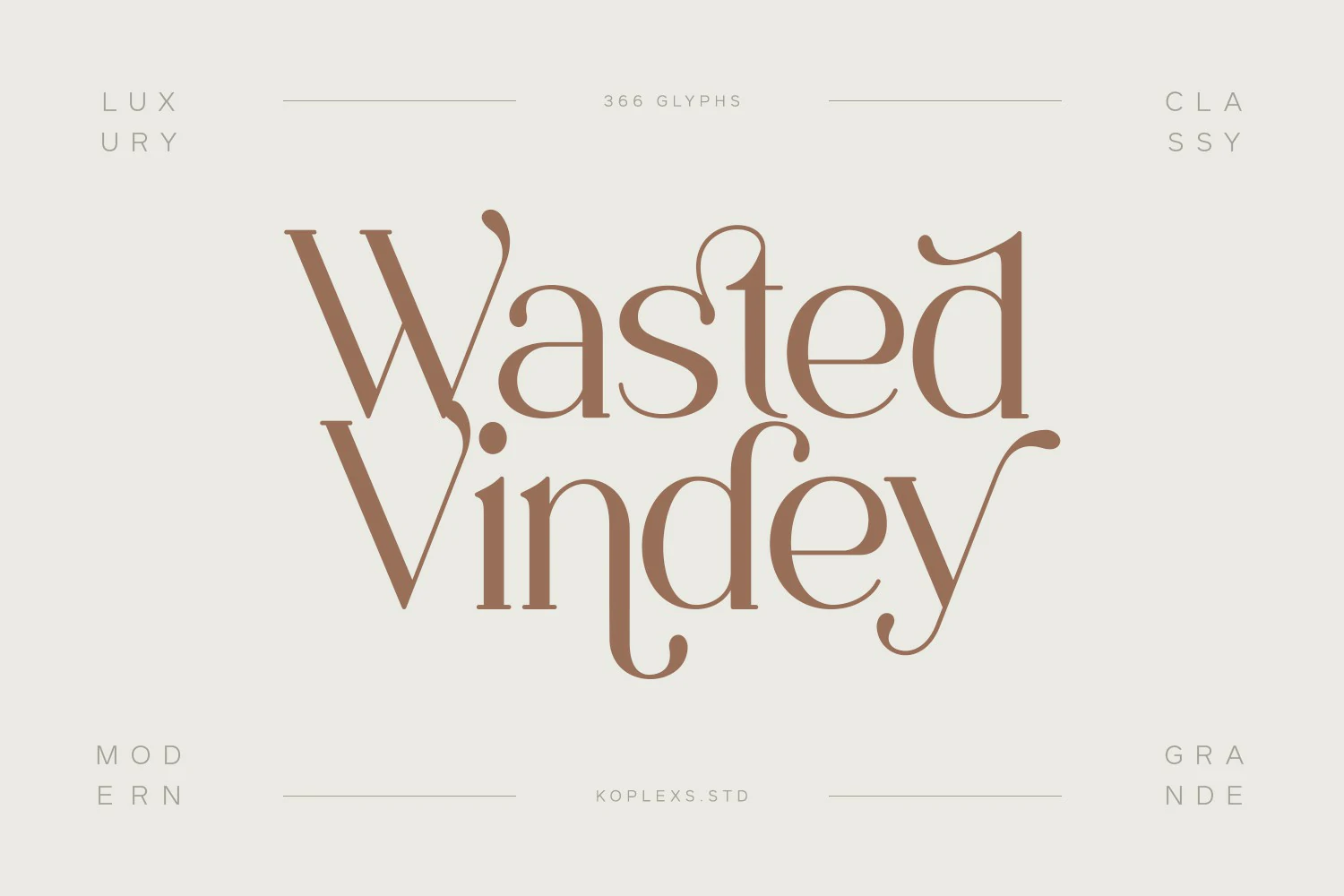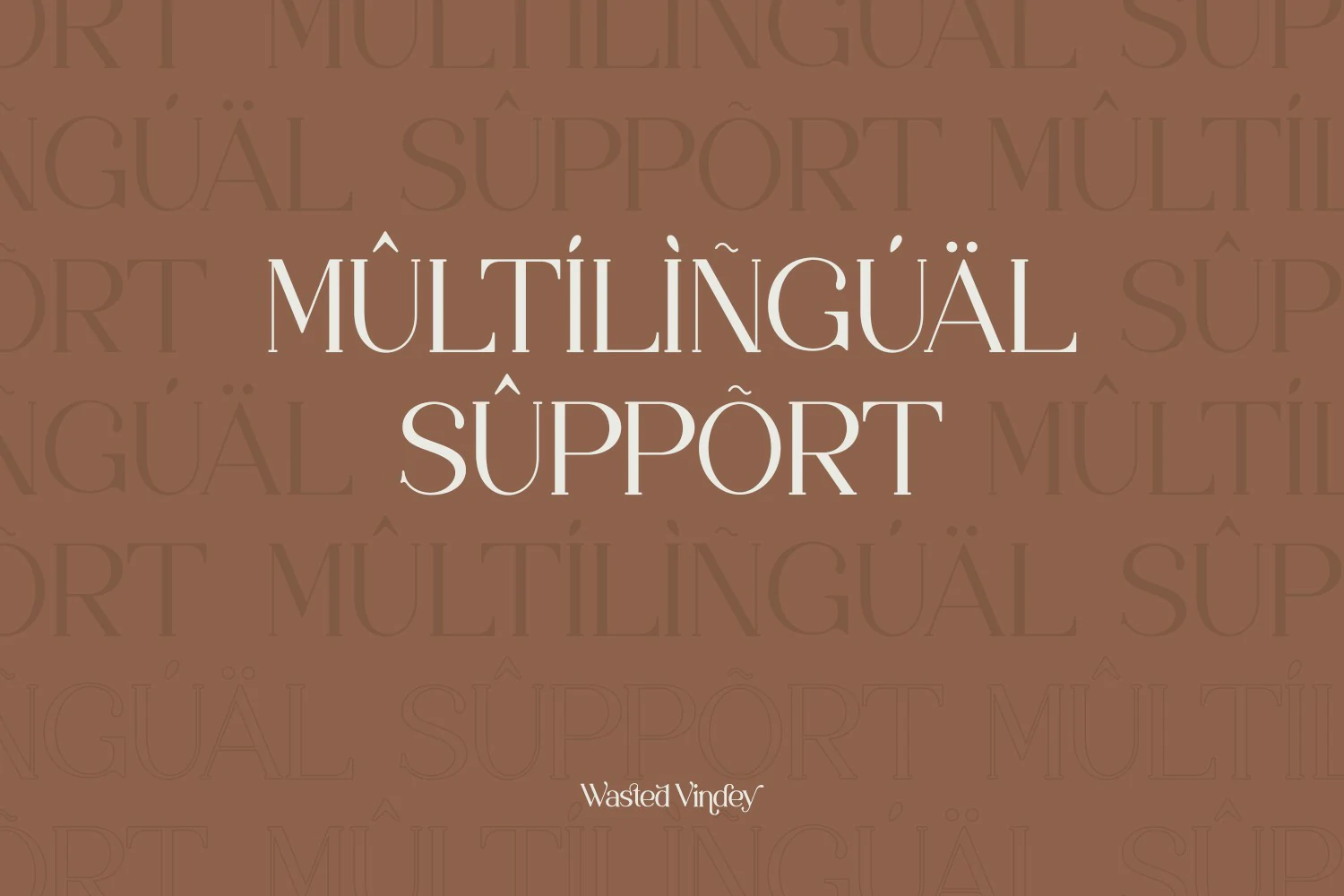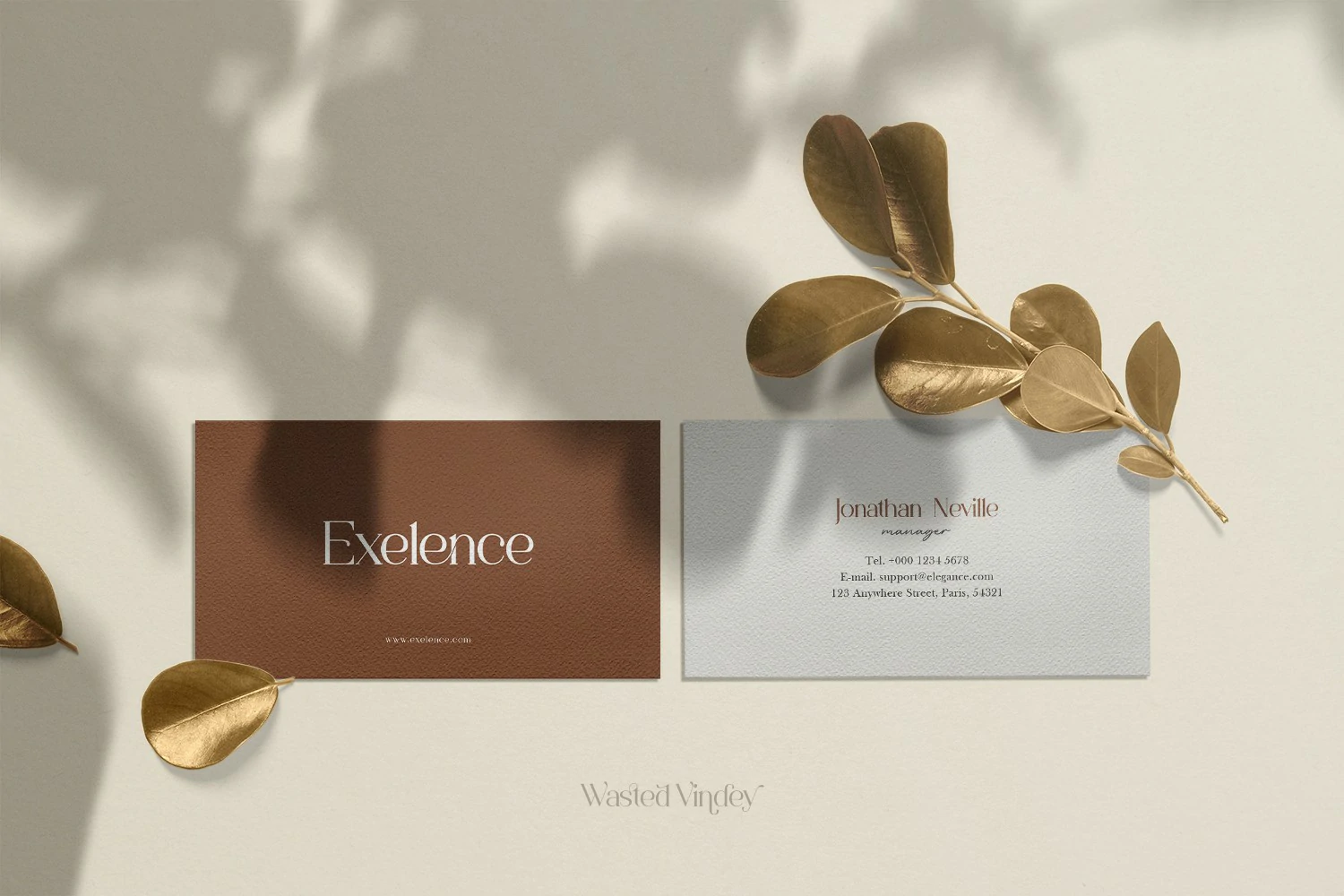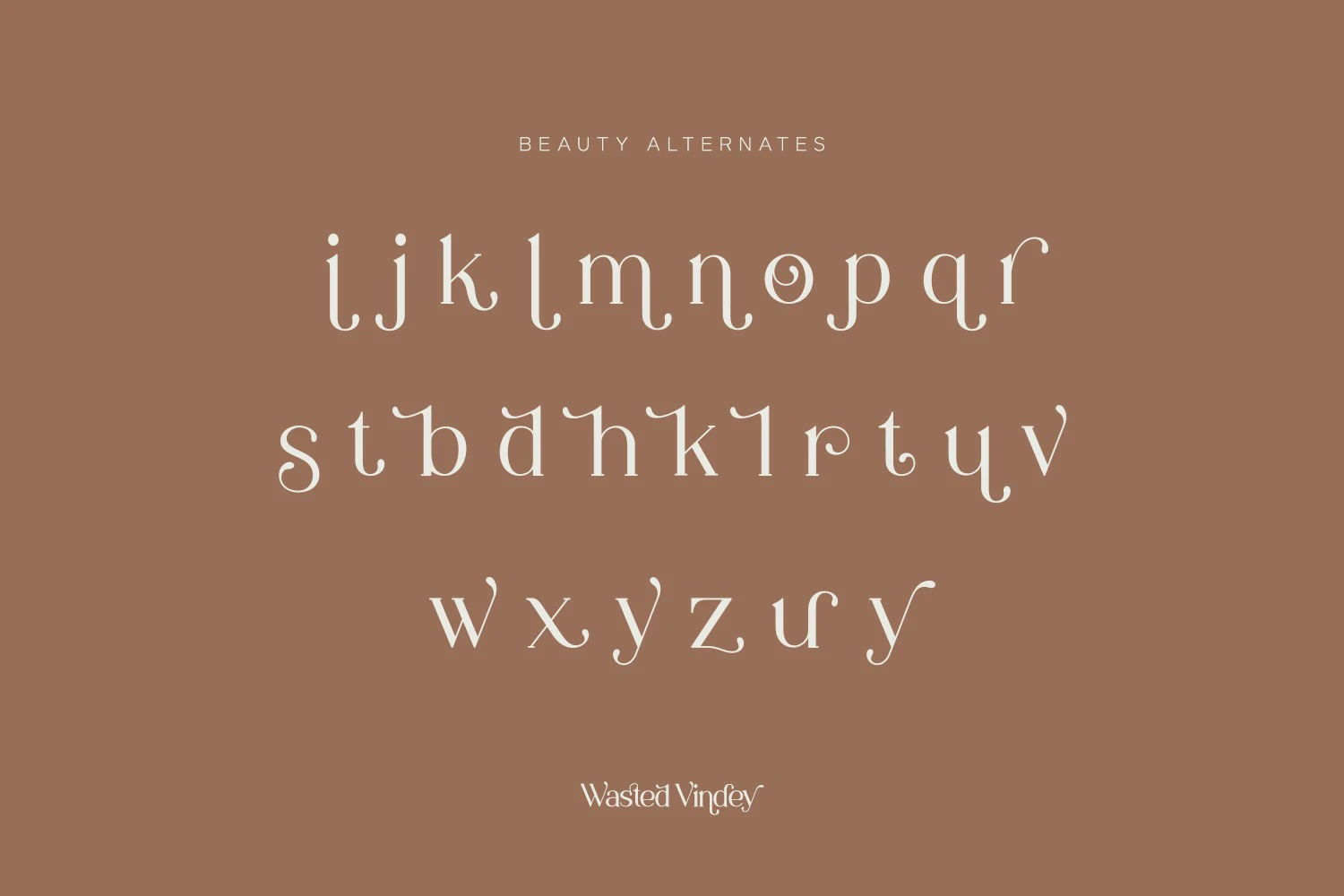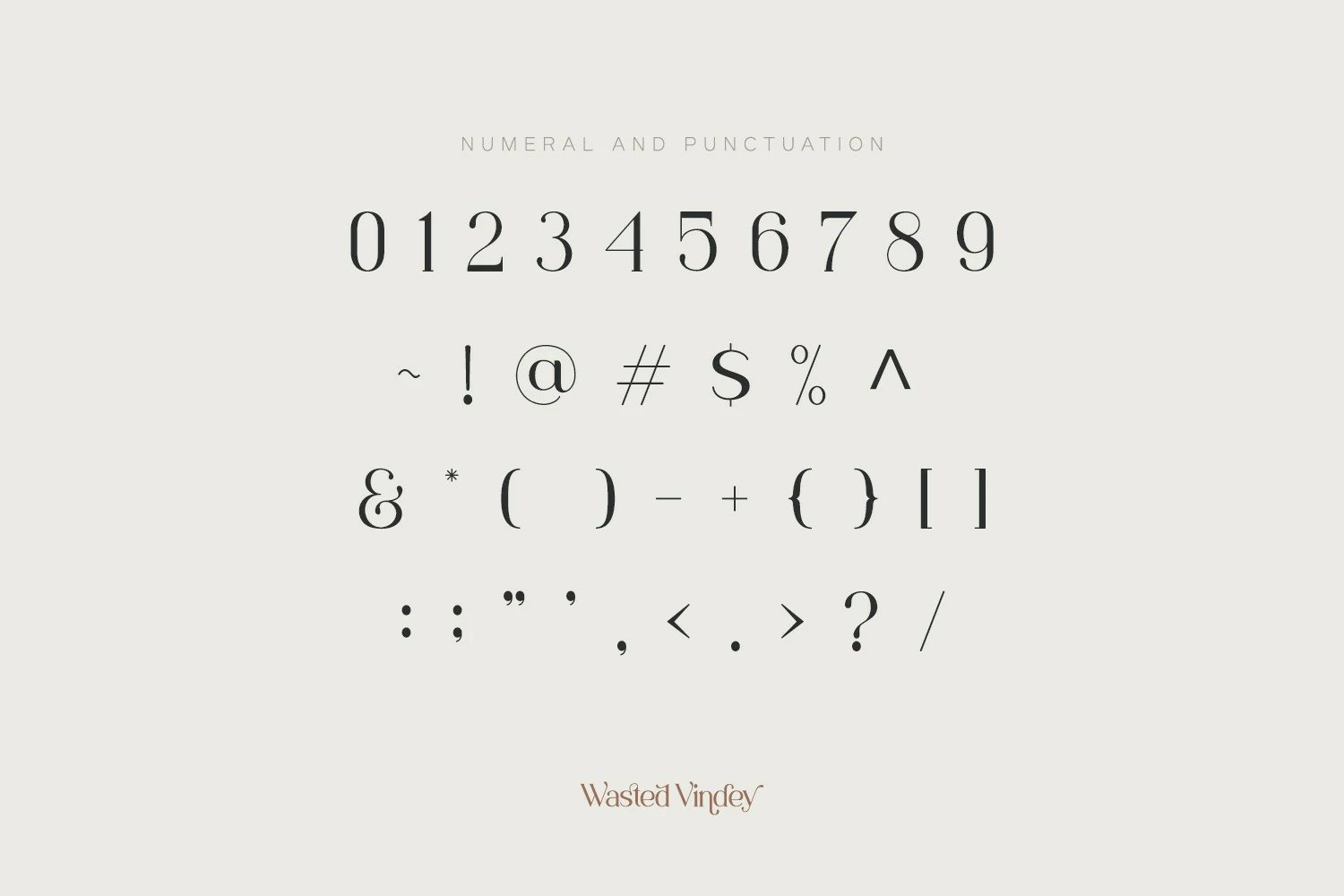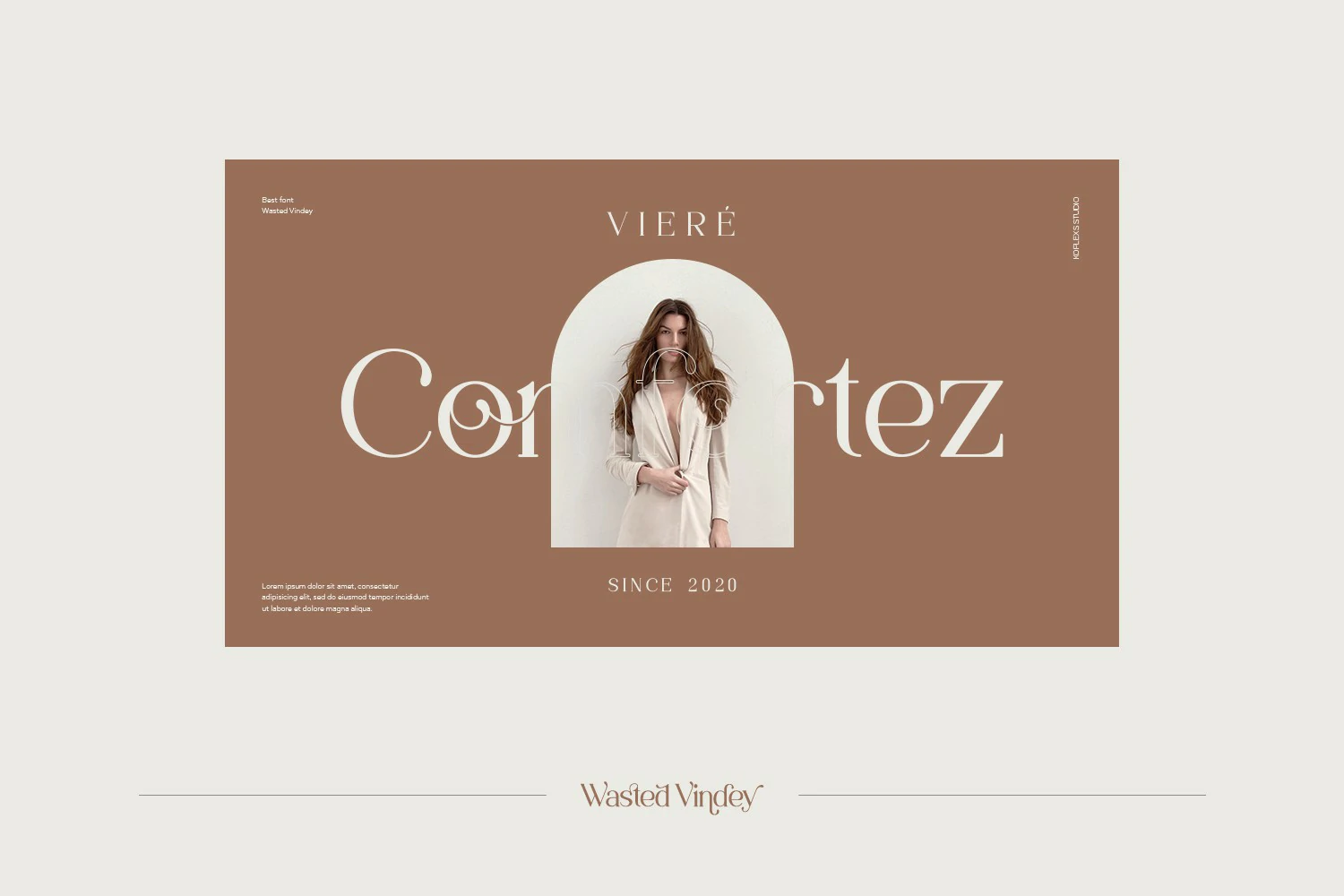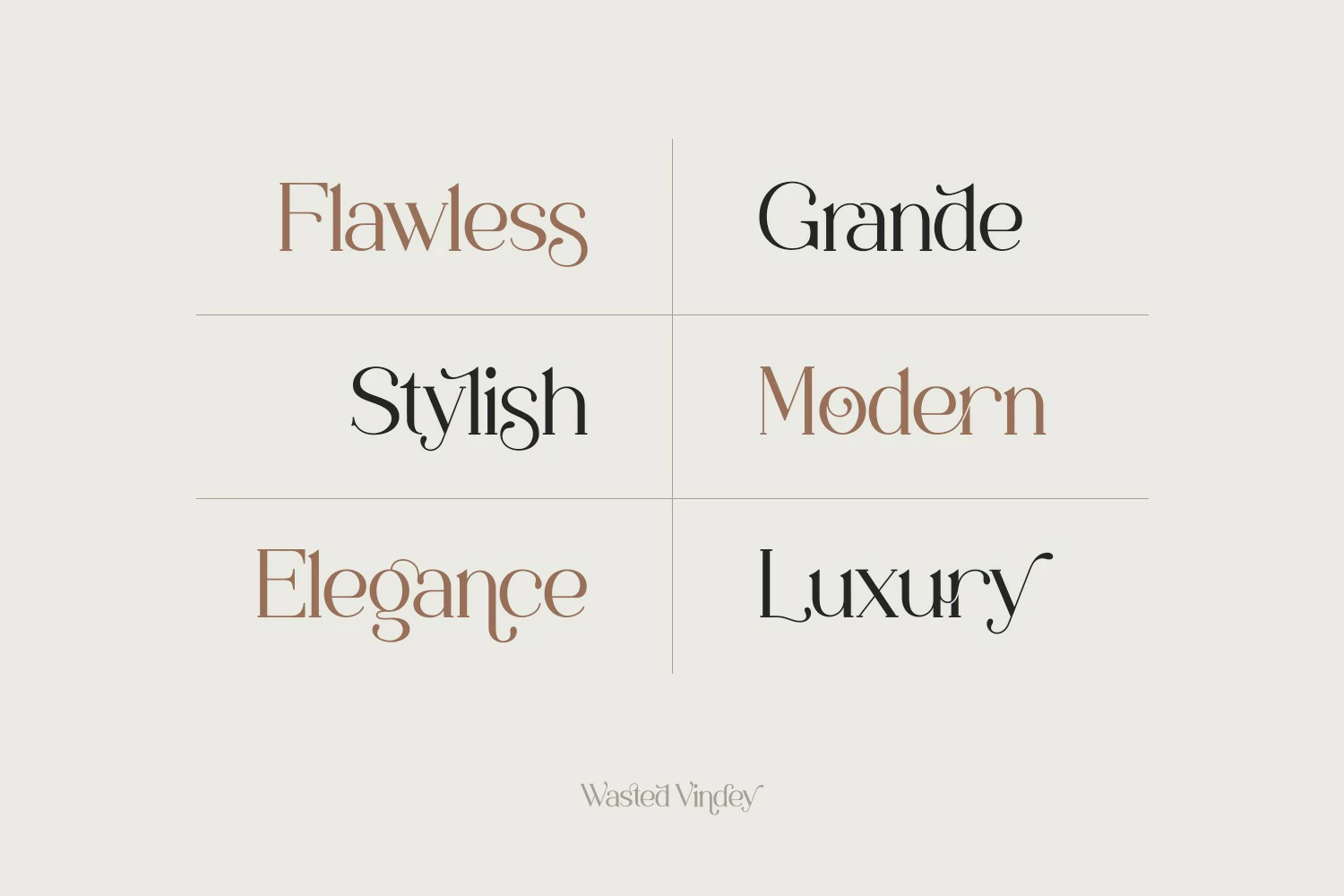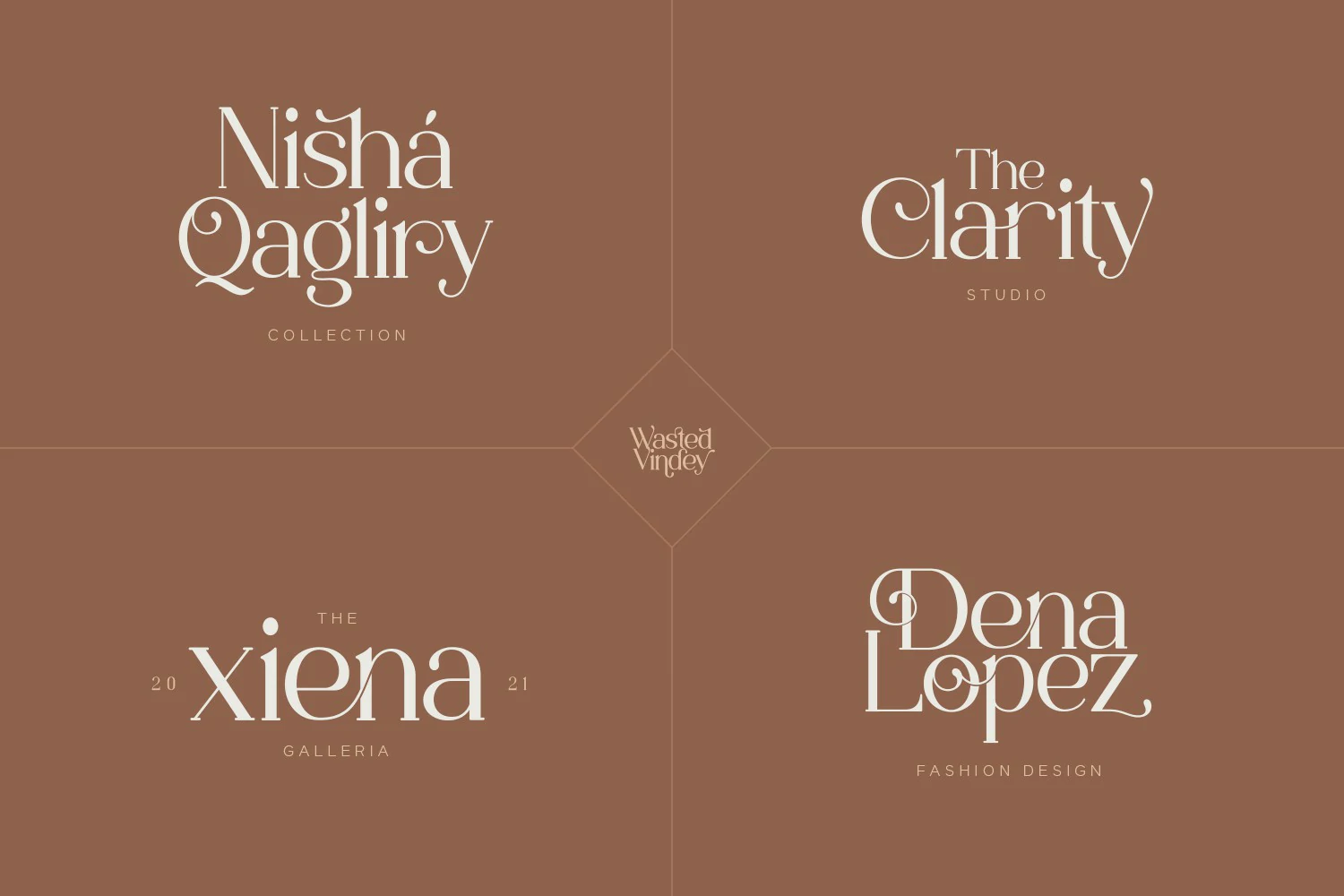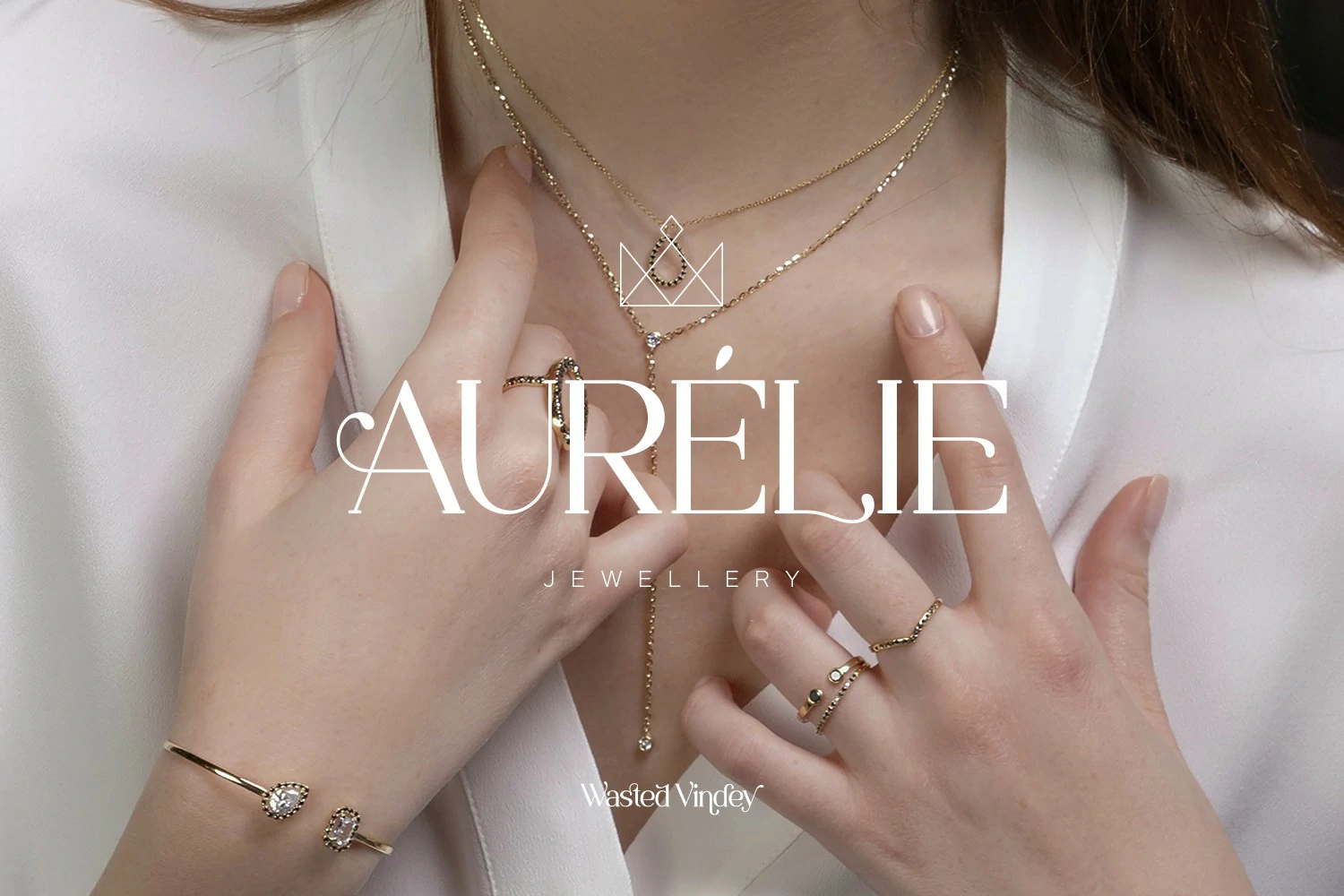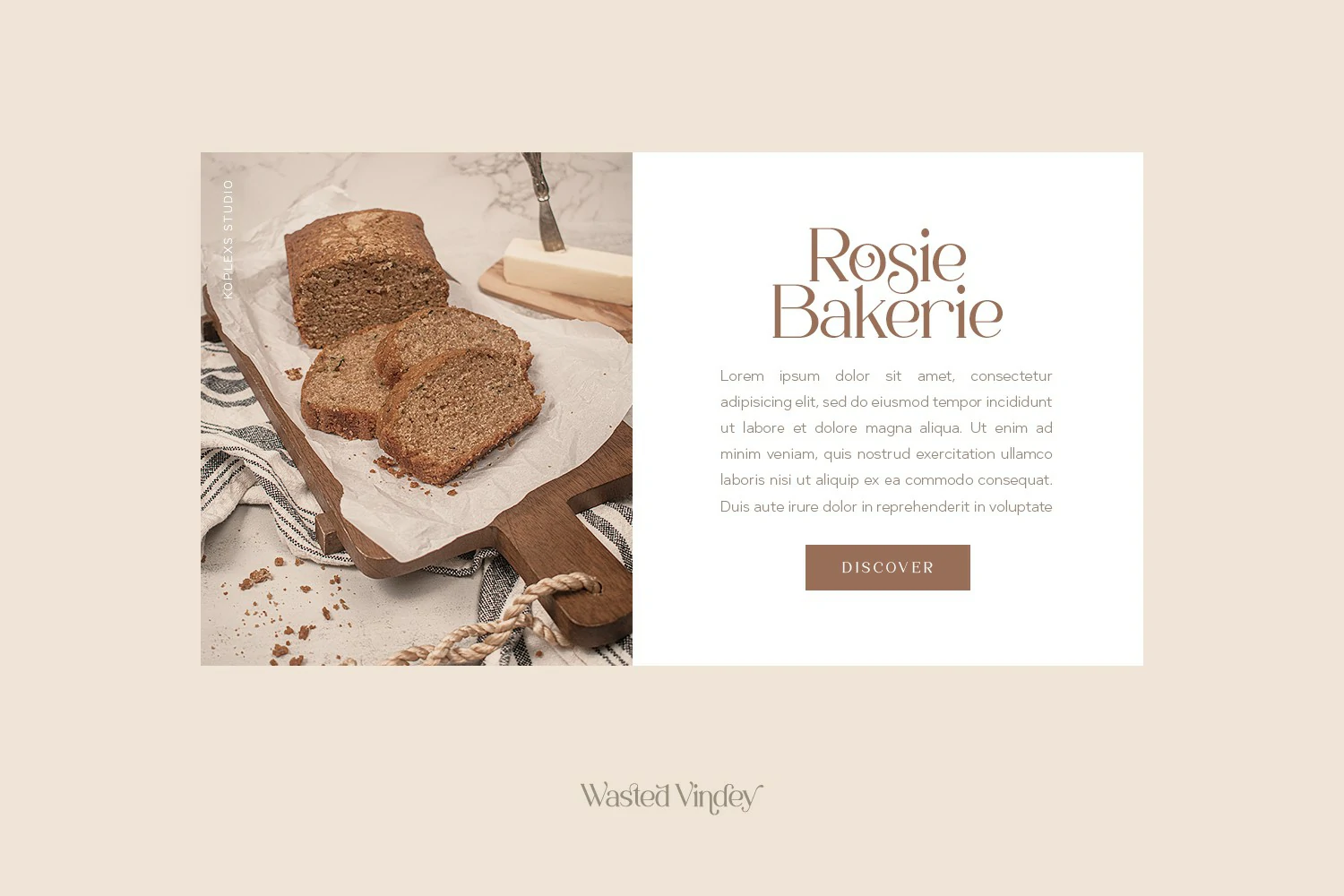
Wasted Vindey Font
Wasted Vindey Font is a modern luxury serif font with 366 glyphs, elegant ligatures, and stylish alternates perfect for branding, editorials, logos, and high-end fashion design.
Wasted Vindey Font
Wasted Vindey Font is a modern serif typeface that blends high fashion elegance with refined editorial style, designed for creators who seek bold sophistication in their visual identity. With 366 meticulously crafted glyphs, a rich set of stylish ligatures, and alternates that express personality, Wasted Vindey is more than a font it’s a statement.
This font was born from the fusion of classical Roman serifs and contemporary calligraphic curves, giving it a graceful yet assertive presence. Whether you are designing for a luxury fashion brand, upscale magazine, lifestyle blog, or an exclusive product label, Wasted Vindey delivers a sense of grandeur and uniqueness.
Each letter in Wasted Vindey is thoughtfully shaped to elevate your design the tall ascenders, deep contrast in strokes, and unique terminals all reflect timeless elegance. What truly sets it apart is its gorgeous swash alternates and bespoke ligatures that enhance headlines, logos, and branding visuals.
From magazine titles, fashion editorials, wedding invitations, to branding for boutique businesses, this font adapts to both minimalist and elaborate compositions. The alternate glyphs allow endless customization possibilities, perfect for designers who love to experiment with aesthetics while keeping coherence.
Wasted Vindey Font Features:
• Uppercase & lowercase letters
• Numerals & punctuation
• 366 glyphs in total
• Swashes and stylistic alternates
• Multi-lingual support
• Special ligatures (including “ra,” “or,” “uh,” “ff,” “fl,” etc.)
• Perfectly kerned and fully optimized for print and web
Wasted Vindey Font Ideal Use Cases:
• Fashion branding
• Editorial layouts
• Wedding stationery
• High-end packaging
• Personal portfolios
• Luxury logo design
• Business cards & lookbooks
Crafted to stand out in the modern design world, Wasted Vindey works best when used as a display font — it draws attention with its sophisticated curves and sharp character. If you’re aiming to create a premium, clean, and visually stunning brand, this font will quickly become your go-to.
Wasted Vindey’s balance of classic charm and modern sensibility makes it an excellent choice for designers seeking a timeless yet trendy typeface. Whether your next design is destined for the pages of a glossy fashion magazine or the cover of an exclusive catalog, this font delivers poise, personality, and polish.